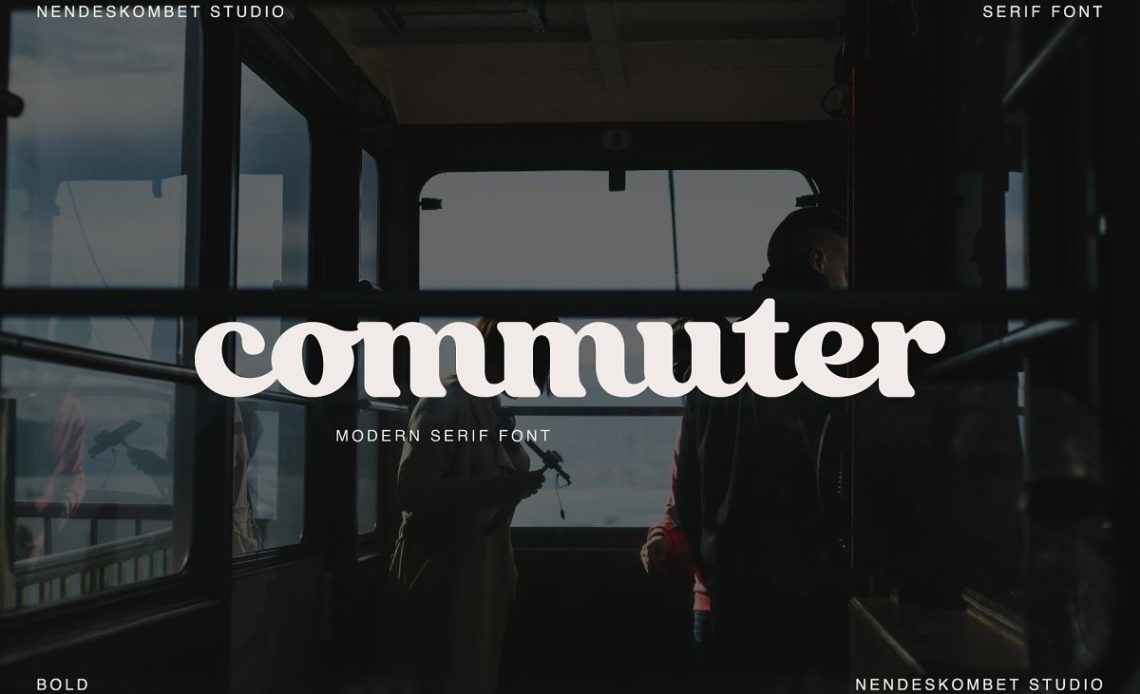
Introducing commuter, a modern serif font that will elevate your designs to new heights of elegance and sophistication. Created by the talented Husain Assyahid, this font is the perfect choice for those seeking a minimalist and stylish option for their projects.
With its seamless connection between letters and an abundance of special alternative glyphs, commuter offers endless possibilities for customization. Whether you're working on a branding project, designing a logo, or creating product packaging, this font will add a touch of class and professionalism to your work.
One of the standout features of commuter is its versatility. It performs equally well in both large and small sizes, making it suitable for a wide range of applications. From magazine headers to stylish text overlays on background images, this font effortlessly captures attention and creates a lasting impact.
But it's not just about looks. commuter also offers practical features to enhance your design experience. With stylistic alternates and ligatures, you can add unique flourishes and create a truly personalized aesthetic. Additionally, the font includes numerals and punctuation, ensuring that every aspect of your design is covered.